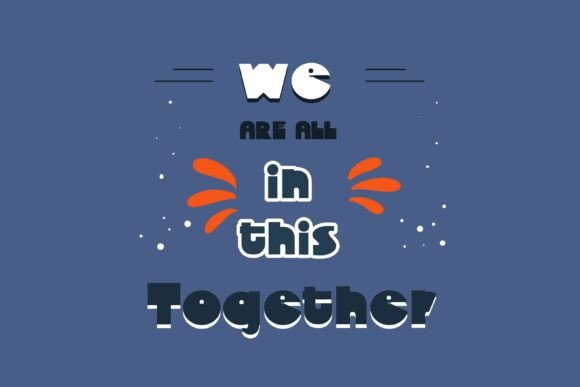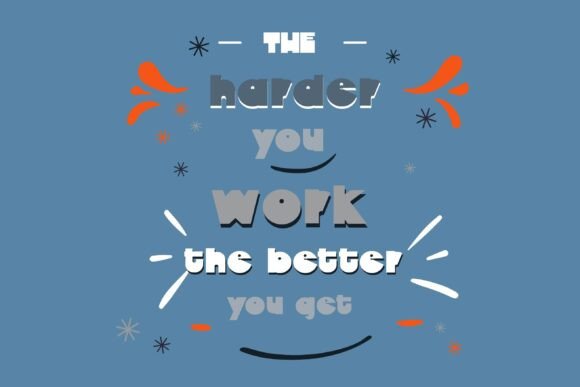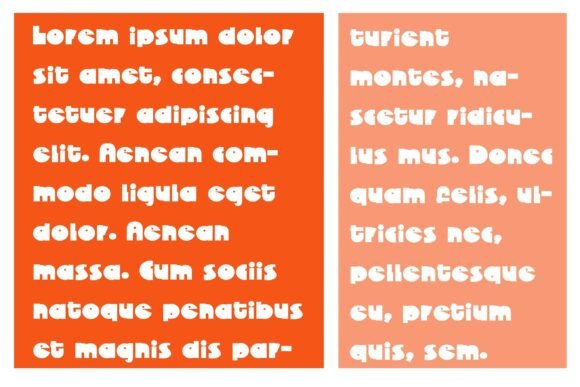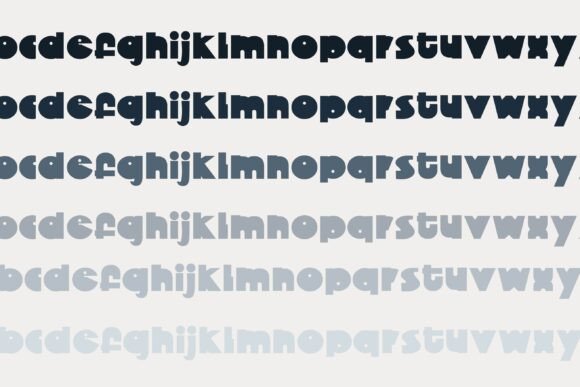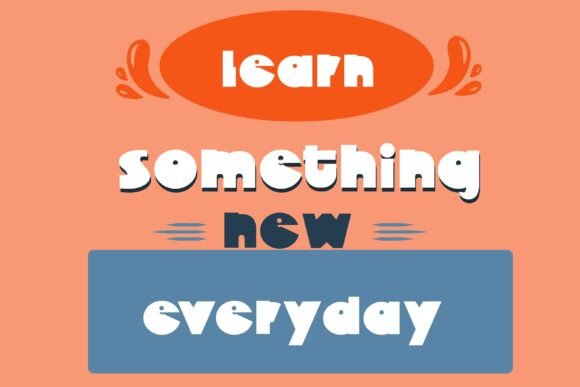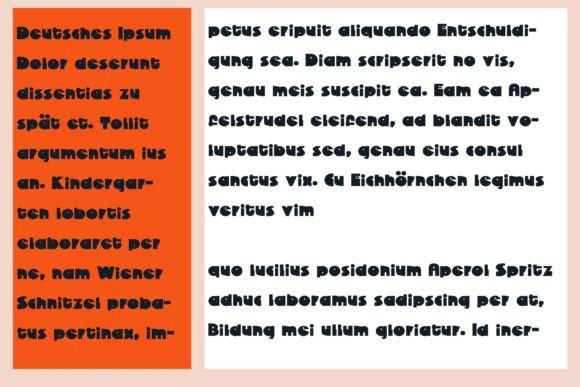
Introduction to Outta Pocket Font
As designers, we’ve all been there – staring at a blank canvas, trying to come up with the perfect title for our latest project. It’s a crucial moment, as the right font can make or break the entire design. For those looking for a high-quality font that’s both unique and versatile, we’re excited to introduce you to the Outta Pocket Font.
This hand-crafted sans serif font is a game-changer for designers looking to add a touch of retro charm to their creative project. With its boxy, rounded lettering, the Outta Pocket Font is perfect for titles, displays, posters, and more. And the best part? It’s available for a free download, making it a valuable resource for designers of all levels.
Key Features of Outta Pocket Font
- High-quality design resource ideal for creative projects, offering a unique and stylish look.
- This font features a transparent background, allowing for seamless integration with any design element.
- The font size is scalable, making it suitable for a range of applications, from small text to large headings.
- With a resolution of 300 DPI, this font is ideal for both digital and print designs, ensuring crisp and clear readability.
- Outta Pocket Font is designed to be versatile, suitable for use in a variety of creative projects, from branding and advertising to editorial and entertainment design.
Honest Review: Outta Pocket Font
I recently had the opportunity to work with the Outta Pocket Font, and I must say it’s a great addition to any design resource. The font itself is quite versatile and can be used for a wide range of creative projects, from logos to signage.
One of the standout features of the Outta Pocket Font is its high quality, which makes it perfect for printing. The font is available for free download, which is a major plus in my book. The transparent background option also makes it easy to use in various design scenarios.
Here are some of the things that work well with the Outta Pocket Font: ✨
- High-quality font
- Wide range of creative applications
However, there are a few limitations to be aware of: ⚠️
- The font may not be suitable for very small text sizes
- The font may not be as customizable as some other options
Overall, I’m quite impressed with the Outta Pocket Font. It’s a great option for designers who need a high-quality, versatile font without breaking the bank. With its transparent background option and wide range of creative applications, it’s definitely worth checking out.
Tips for Getting the Most Out of Outta Pocket Font
Use the Outta Pocket Font on a transparent background to create a modern and sleek design. Experiment with different font sizes and styles to add visual interest to your creative project.
The Outta Pocket Font is ideal for use in logos, branding materials, and creative projects that require a high-quality, free download font. Its unique design and transparent background make it a versatile design resource for any creative project.